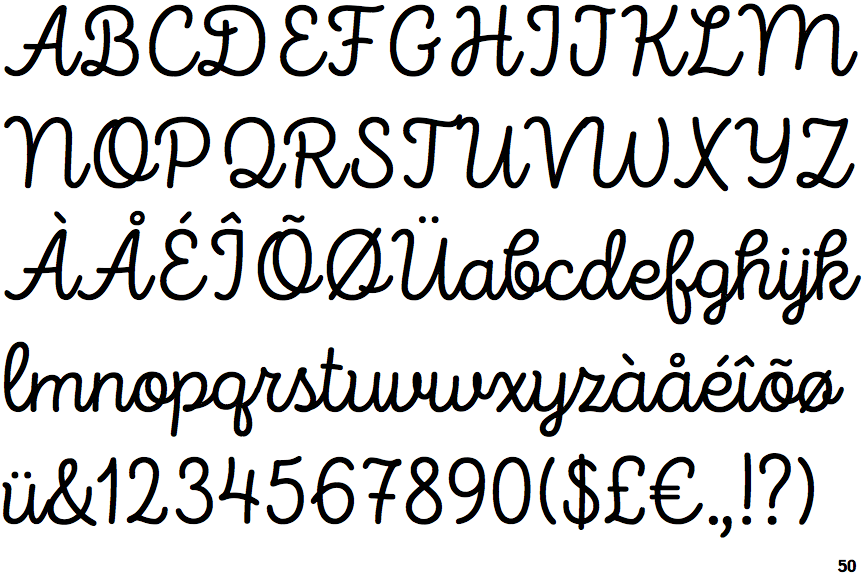
Intro Script Font
Intro Script Font - The font is available in all formats (intro script woff2, intro script woff, intro script ttf, intro script eot) and applicable to the website, photoshop and any os. This font includes 8 different weights and a lot of useful features and extra options that. Intro script carries with it ideas of resurgence, renewal. This typeface has twelve styles and was published by fontfabric. Designed by ventsisalv dzhokov, intro script is a script and dingbat font family. 100% intro script—script family of 11 fonts—extended latin & cyrillic—get 1 free @ fontfabric.com today.